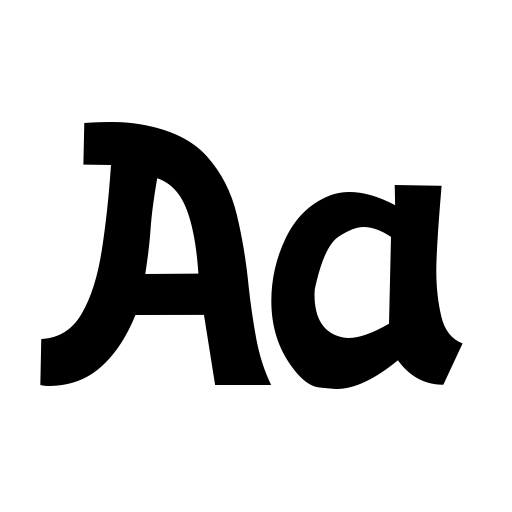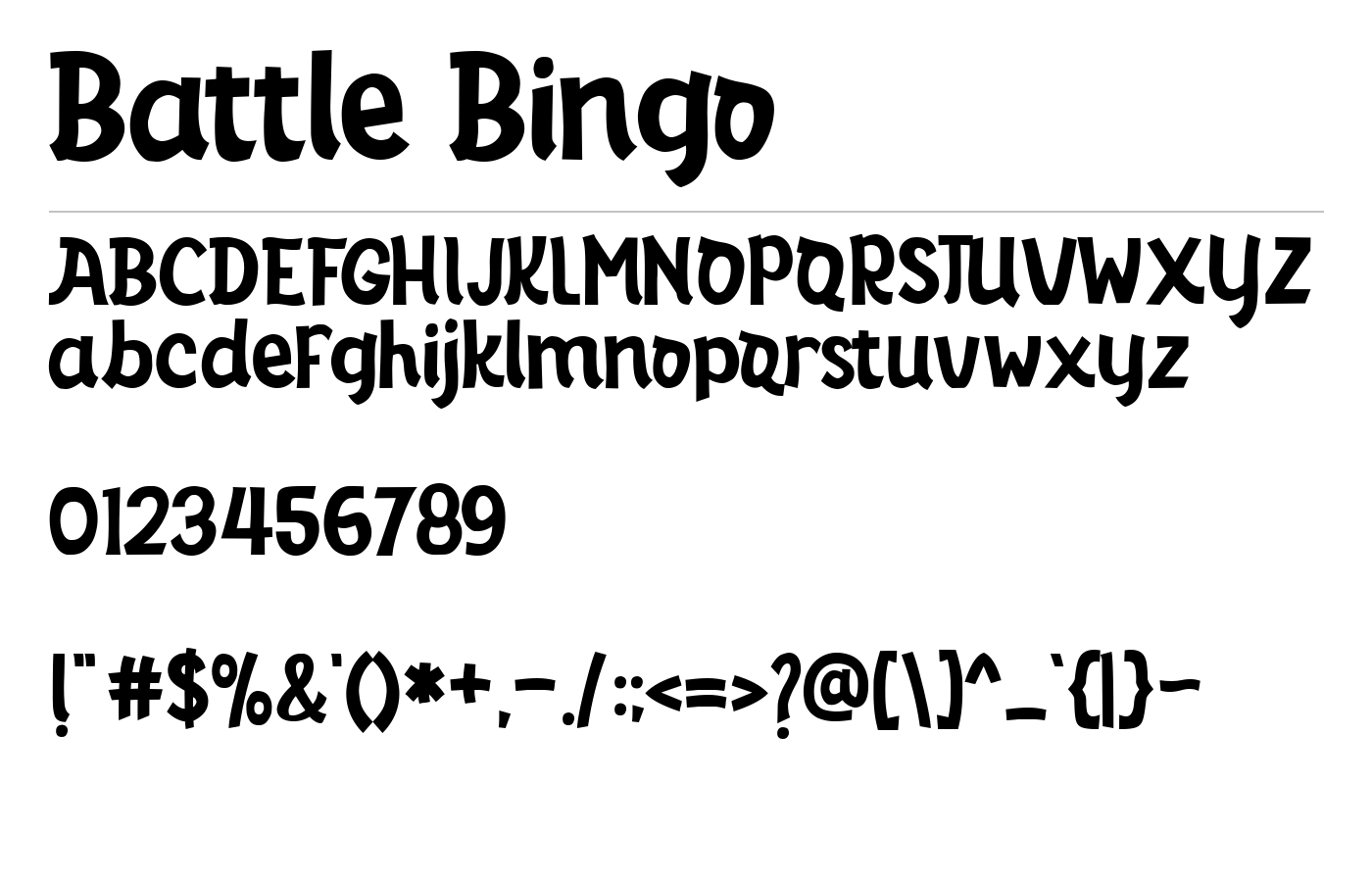
Battle Bingo is a bold, playful sans serif font with a quirky, hand-crafted feel that brings personality and charm to any design. Its medium weight, slightly condensed letterforms with unique curves and subtle irregularities make it perfect for eye-catching headlines, fun branding, and creative projects looking to convey energy and friendliness. This font works especially well in posters, packaging, and casual editorial contexts where a lively and approachable tone is desired.
Battle Bingo Font
About Battle Bingo Font
| Font family | Battle Bingo Font |
| Designer | Zeenesia 2021 |